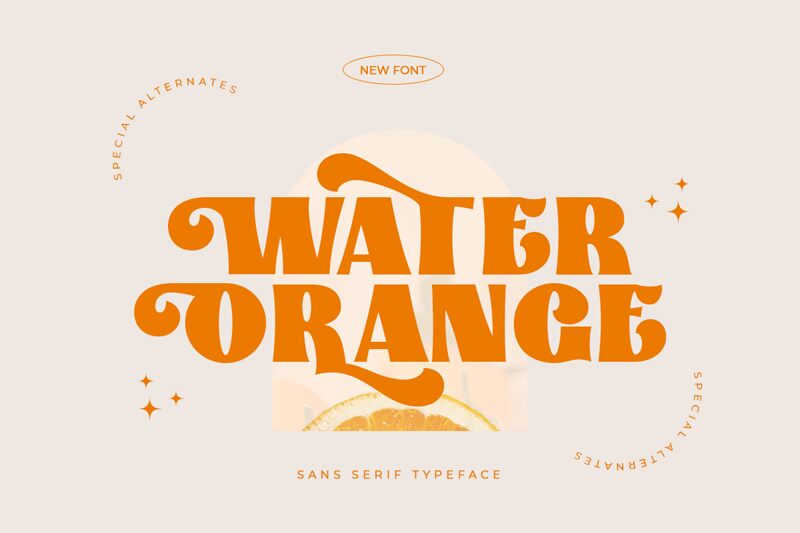
Water Orange
Water Orange, a captivating display font by Kong Font, transports you to the vibrant world of retro design. With its extra-bold weight and semi-expanded width, this font demands attention and exudes confidence.
Perfect for eye-catching logos, striking headlines, or vintage-inspired posters, Water Orange adds a touch of nostalgia to any project. Its playful yet bold aesthetic brings life to your designs and captivates viewers with its unique charm.
Let Water Orange transport you back in time and make your visual creations truly stand out.